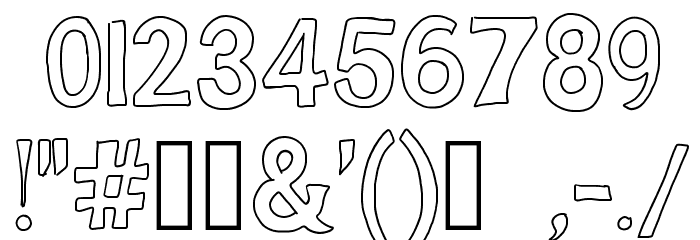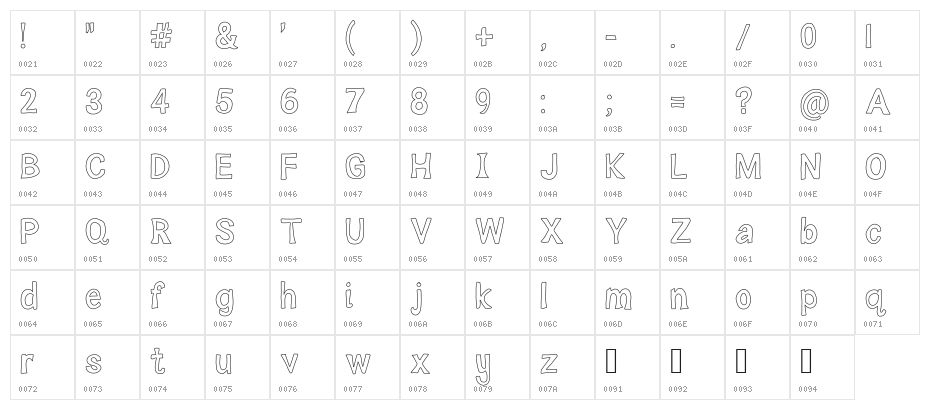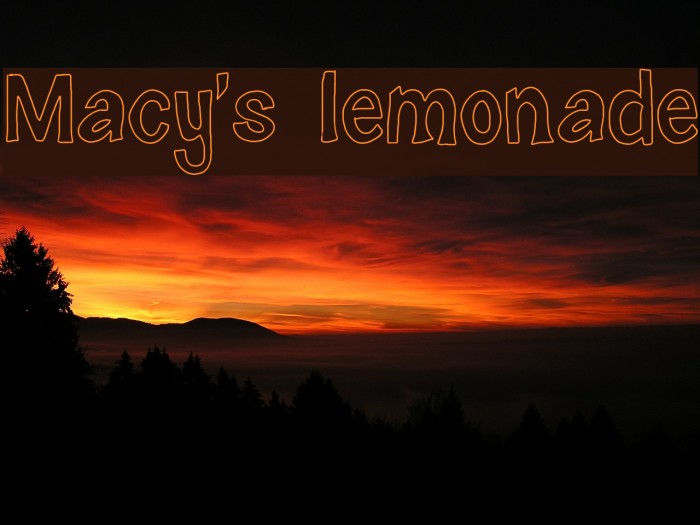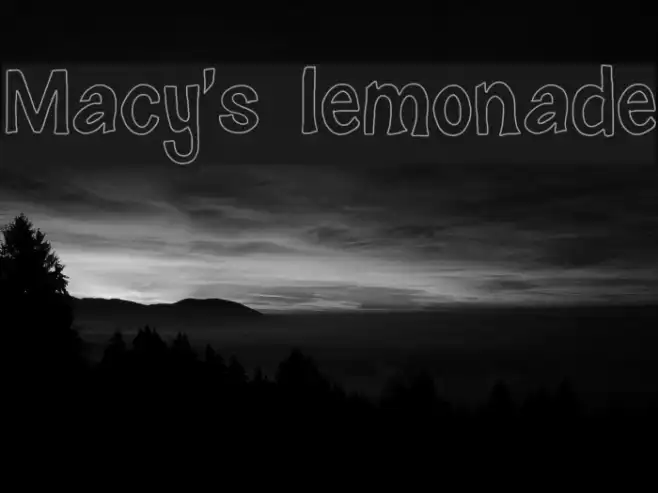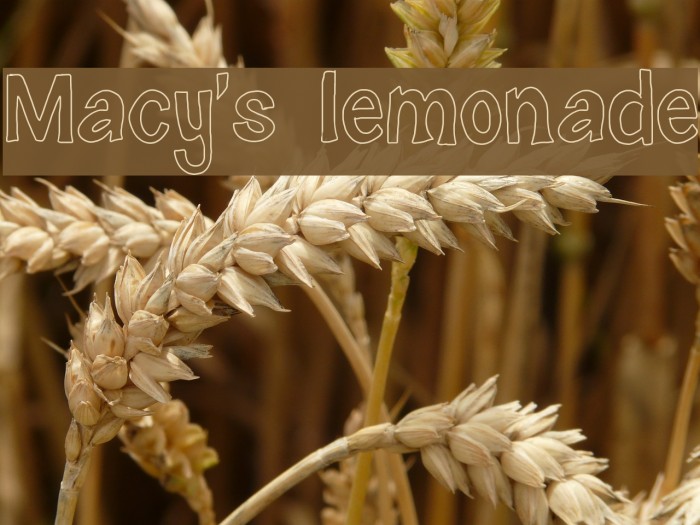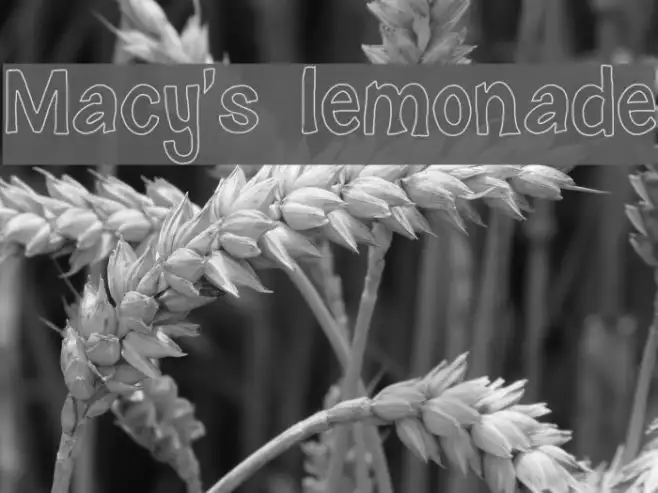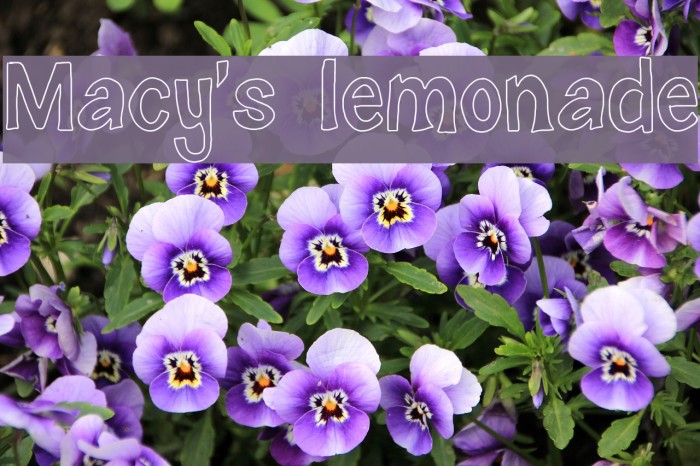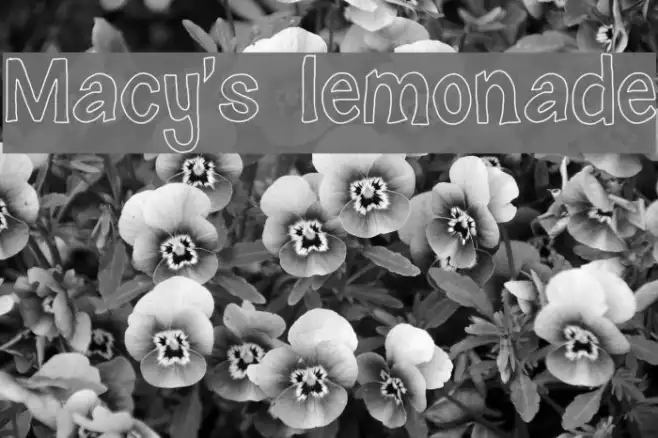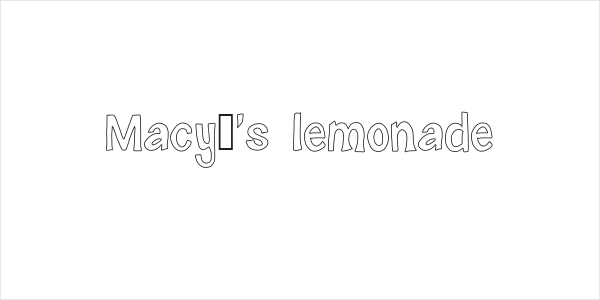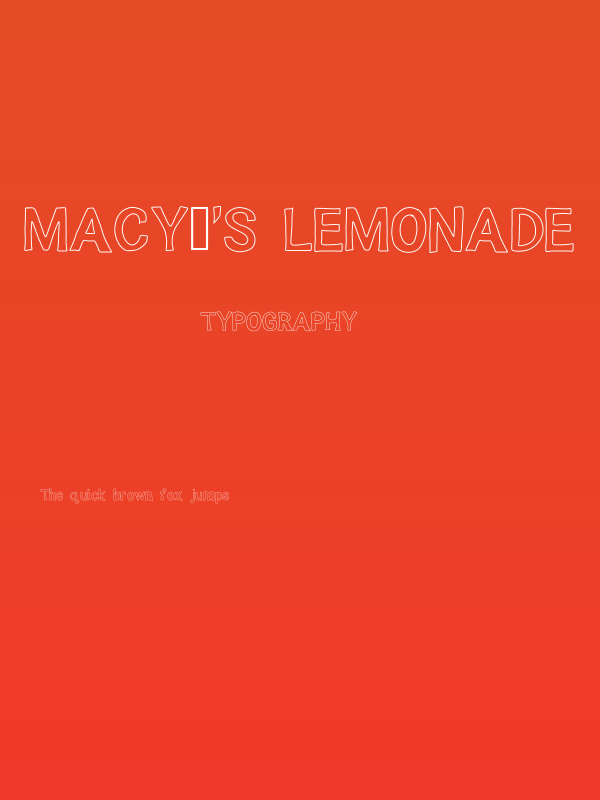
Macy's lemonade Font
Macy's lemonade Description
This font features a playful and whimsical design, characterized by its hand-drawn appearance. The letters have a casual, slightly uneven stroke that gives them a friendly and approachable feel. The uppercase and lowercase letters maintain a consistent style, with rounded edges and a slight tilt that adds to the informal aesthetic. The numbers and special characters follow the same design principles, ensuring a cohesive look across all glyphs. This font's unique style makes it stand out, offering a creative and artistic touch to any project.